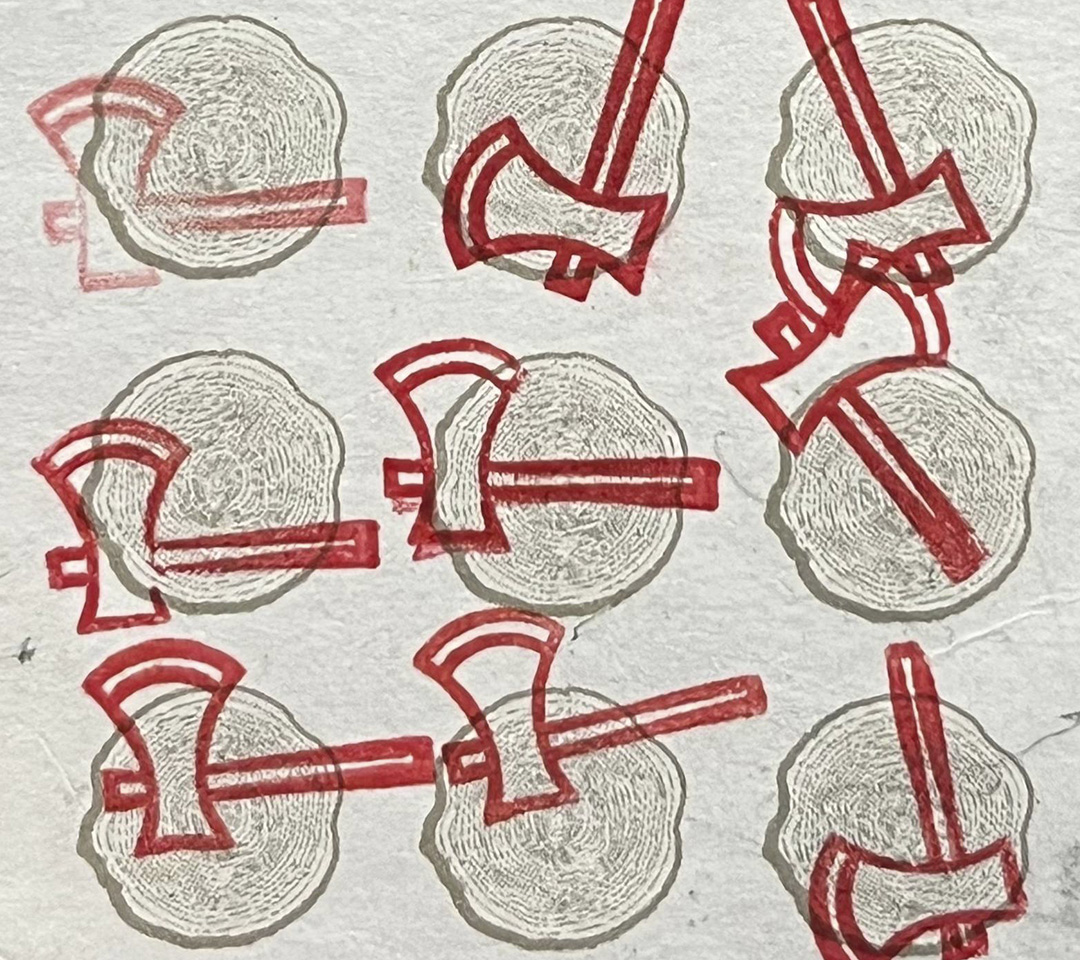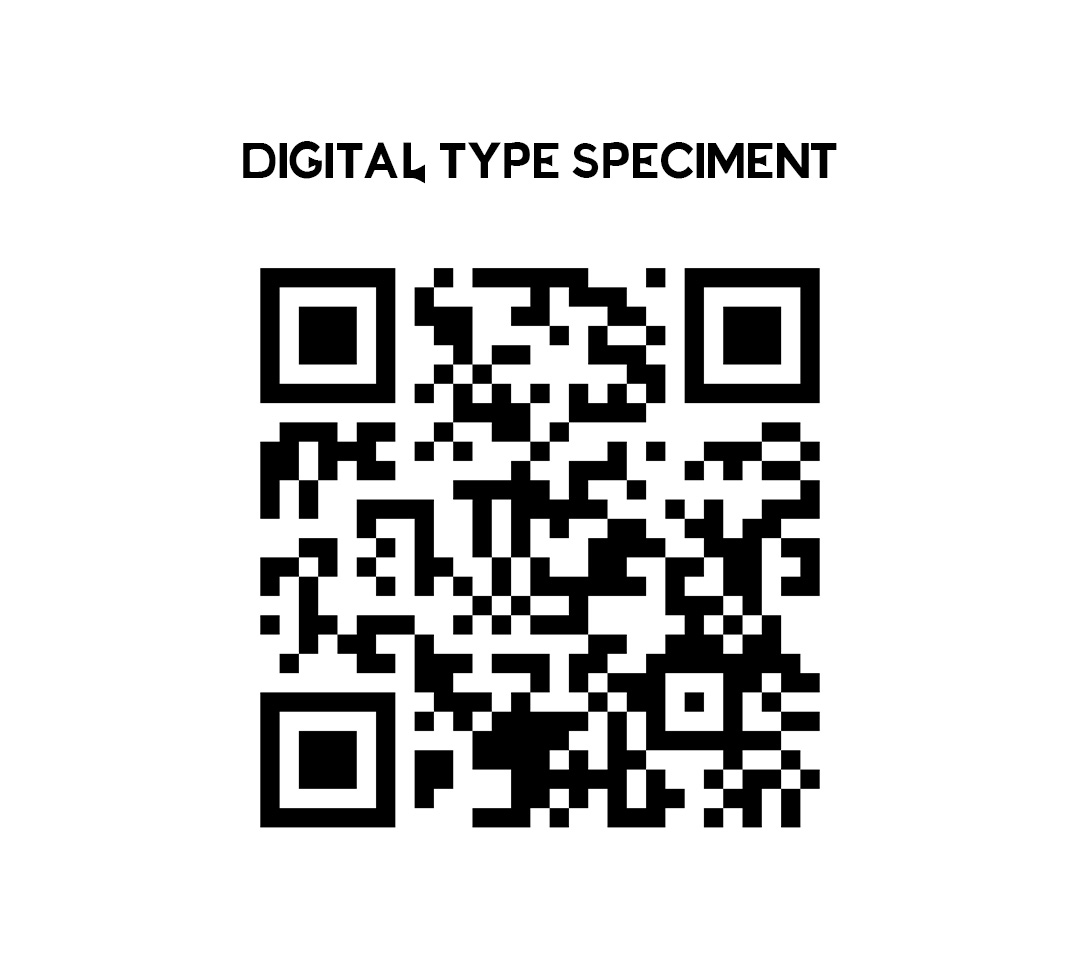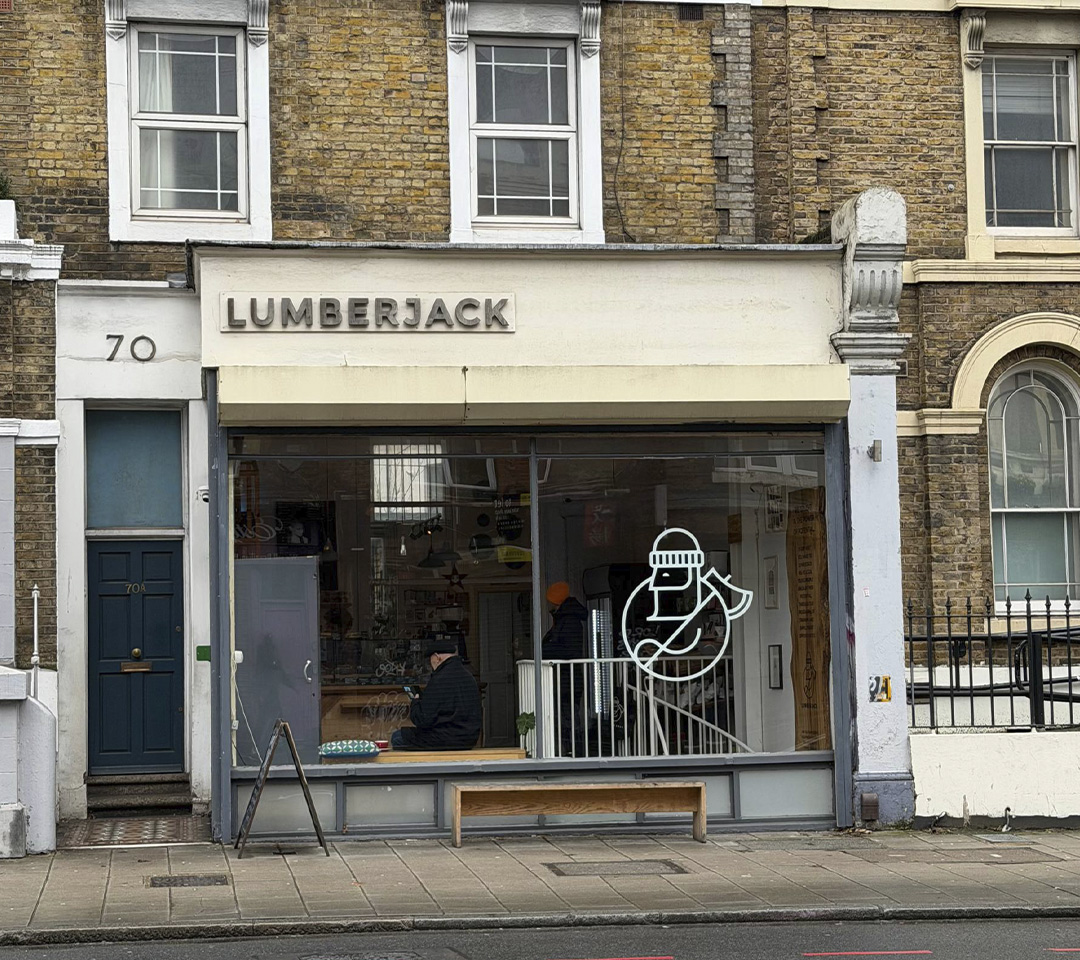
Axe font was created for Lumberjack Coffee, a local caf' that takes pride in sustainability and supporting small artists. This typeface is based on the existing san-serif font of Lumberjack with additional details that make it unique. One of the biggest changes in the font was inspired by the Axe stamps that are imprinted by Lumberjack on their customer loyalty cards. Those axes were turned into serifs and are the highlight of the typeface. "Axe" is supposed to represent the coziness and warmth of the cafe, whilst maintaining its strict nature.